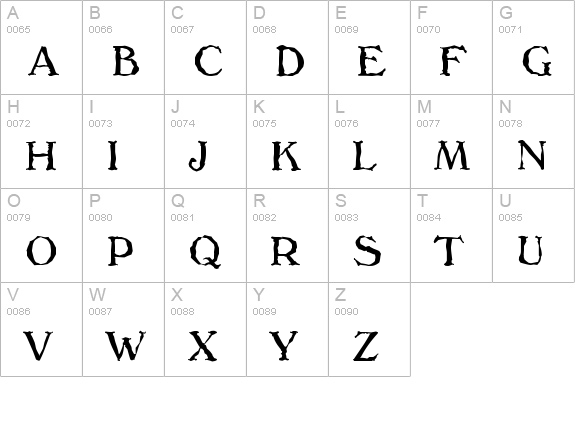
VeronaRandom-Regular Font Details
VeronaRandom-Regular is the standard, neutral variant in the VeronaRandom typeface family \xE2\x80\x94 well suited to general body text, paragraphs, and standard typographic work.
VeronaRandom-Regular is a stylish and modern font that effortlessly combines elegance with a touch of playfulness. This versatile typeface features a unique random effect, providing a dynamic and eye-catching appearance to any design project. Its clean lines and balanced proportions make it suitable for a wide range of applications, from branding to editorial design. What sets VeronaRandom-Regular apart is its ability to add personality and character to your text while maintaining readability and professionalism. Whether you are designing a logo, creating a poster, or crafting a website, this font will surely make your work stand out. Best of all, VeronaRandom-Regular is available for free download at FontsMarket.com. So go ahead and add this beautiful font to your collection to elevate your design projects to the next level.